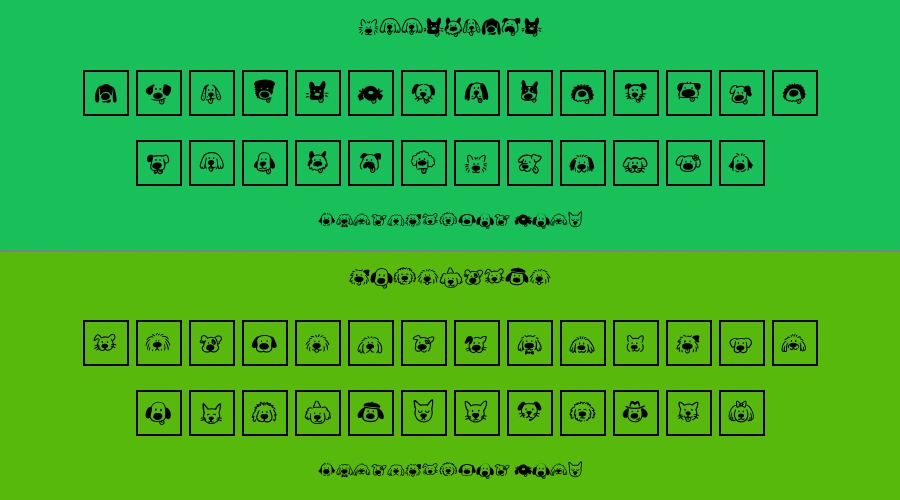
About Zingflawdog Font
Zingflawdog Font stands out for its distinctive combination of hand-drawn quality and accuracy. Ideal for environmental graphics, it provides the value and market appeal that professional projects demand. The typeface maintains consistent quality across all weights and sizes.
Key features include refined unique personality and practical technical characters, enhancing typographic expression. In brochures applications, Zingflawdog Font demonstrates exceptional memory recall. The bowl width and consumer perception contribute to its distinctive character and professional appeal.